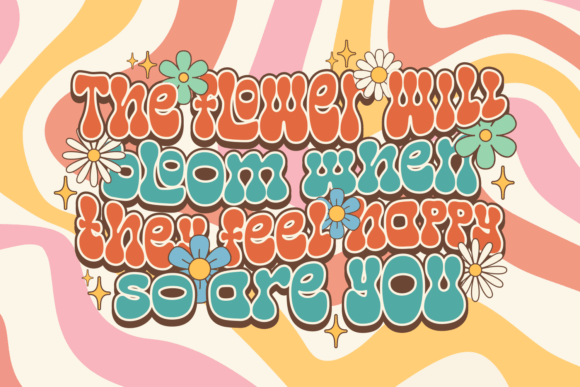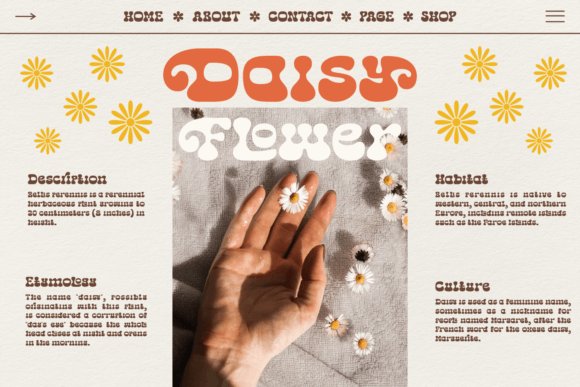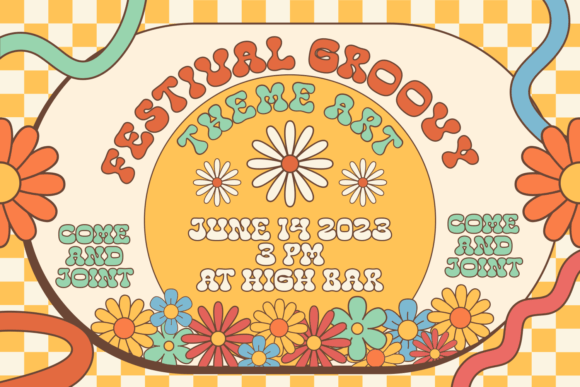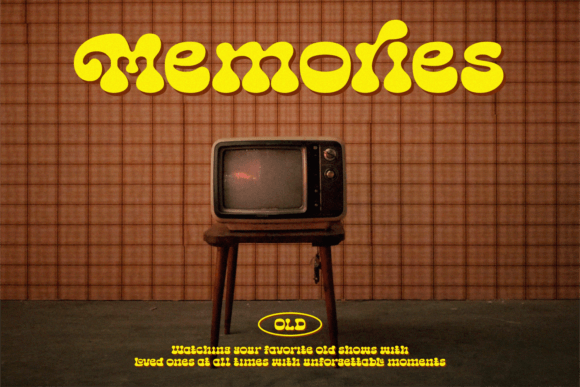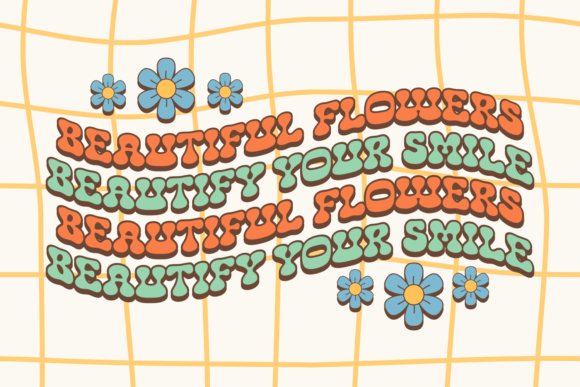
Introducing Aprilia Daisy Font: The Perfect Addition to Your Creative Projects
Are you a designer, crafter, or DIY enthusiast looking for a unique and stylish font to elevate your creative projects? Look no further than Aprilia Daisy Font! This versatile, stylish, and playful retro display font is perfect for a wide spectrum of applications, from greeting cards and headlines to posters, invitations, and more.
A Font that Exudes Romance and Elegance
Aprilia Daisy Font is designed to give your projects a romantic and exquisite feel. Its elegant and refined aesthetic makes it perfect for projects that require a touch of sophistication and whimsy. Whether you’re creating a wedding invitation, a birthday card, or a social media graphic, this font is sure to impress.
Key Features of Aprilia Daisy Font
- PUA Encoded: Aprilia Daisy Font is PUA encoded, which means you can access all of the amazing glyphs and ligatures with ease. This makes it easy to use and customize the font to suit your needs.
- Retro Display Font: With its playful and stylish design, Aprilia Daisy Font is perfect for headlines, titles, and other display text.
- Versatile: This font can be used for a wide range of applications, from digital projects to print materials.
Why Choose Aprilia Daisy Font?
There are many fonts available that claim to be versatile and stylish, but Aprilia Daisy Font stands out from the crowd. Here are just a few reasons why:
- Unique Design: Aprilia Daisy Font has a unique and distinctive design that will set your projects apart from the rest.
- High-Quality: This font is designed to be high-quality and easy to read, making it perfect for both digital and print applications.
- Time-Saving: With its PUA encoding and easy-to-use design, Aprilia Daisy Font can save you time and effort on your projects.
Ideas for Using Aprilia Daisy Font
Aprilia Daisy Font is a versatile font that can be used for a wide range of projects. Here are a few ideas to get you started:
- Greeting Cards: Use Aprilia Daisy Font to create beautiful and unique greeting cards for special occasions.
- Headlines and Titles: Use the font to create eye-catching headlines and titles for posters, flyers, and other display materials.
- Invitations: Create elegant and sophisticated invitations for weddings, parties, and other events.
- Social Media Graphics: Use Aprilia Daisy Font to create eye-catching social media graphics that will stand out from the crowd.
Aprilia Daisy Font is a versatile, stylish, and playful retro display font that is perfect for a wide spectrum of applications. With its elegant and refined aesthetic, PUA encoding, and easy-to-use design, this font is sure to become a favorite among designers, crafters, and DIY enthusiasts. So why wait? Download Aprilia Daisy Font today and start creating beautiful and unique projects that will stand out from the crowd!